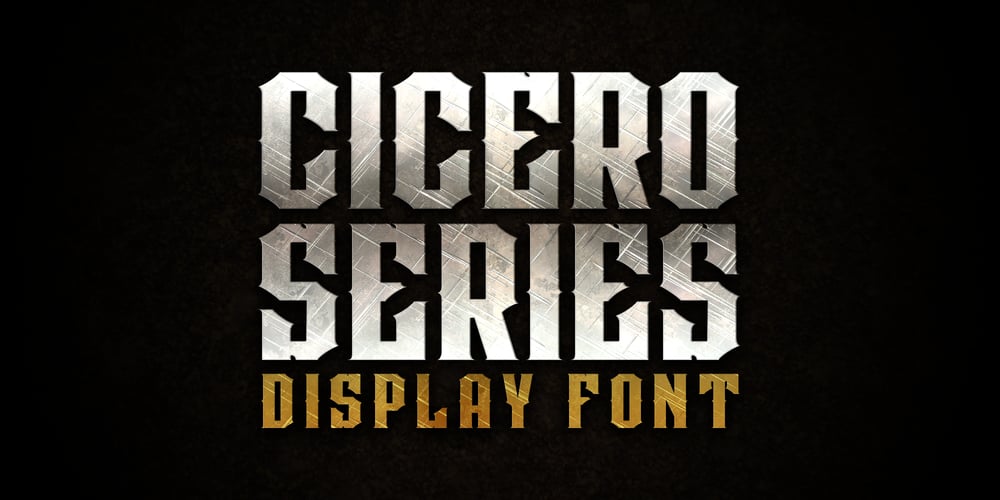
Cicero Series Font Family was designed by Swinn Jonathan and published by Alphabet Agency. Cicero Series contains 1 styles and family package options. Cicero Series is a bold decorative serif display font that exudes power, strength, magnificence, prestige. Add this grandiose piece to your font collection.